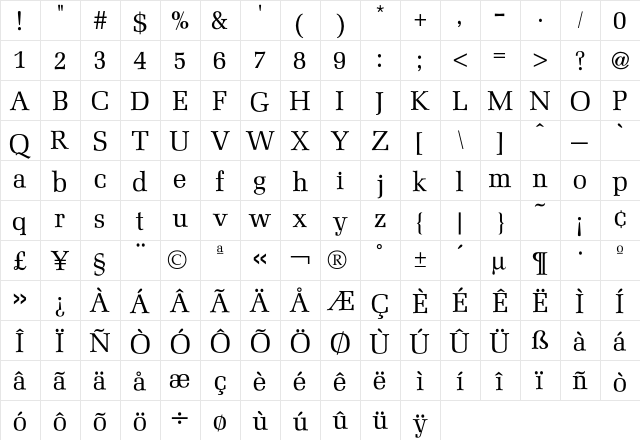
Mezzo Font
Design Context for Mezzo Typeface
Mezzo takes a measured approach to typography — its balanced proportions and neutral character make it a reliable workhorse for both digital and print work.